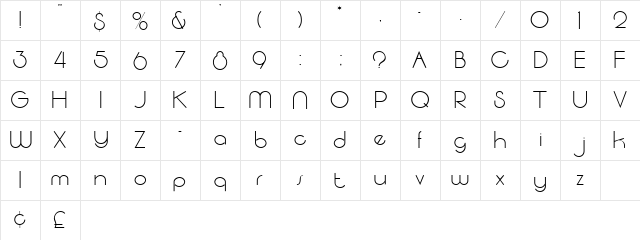
Spats SSi Regular
Design Context for Spats SSi Typeface
Spats SSi is a composed and adaptable typeface that performs quietly and consistently across a wide range of design contexts.